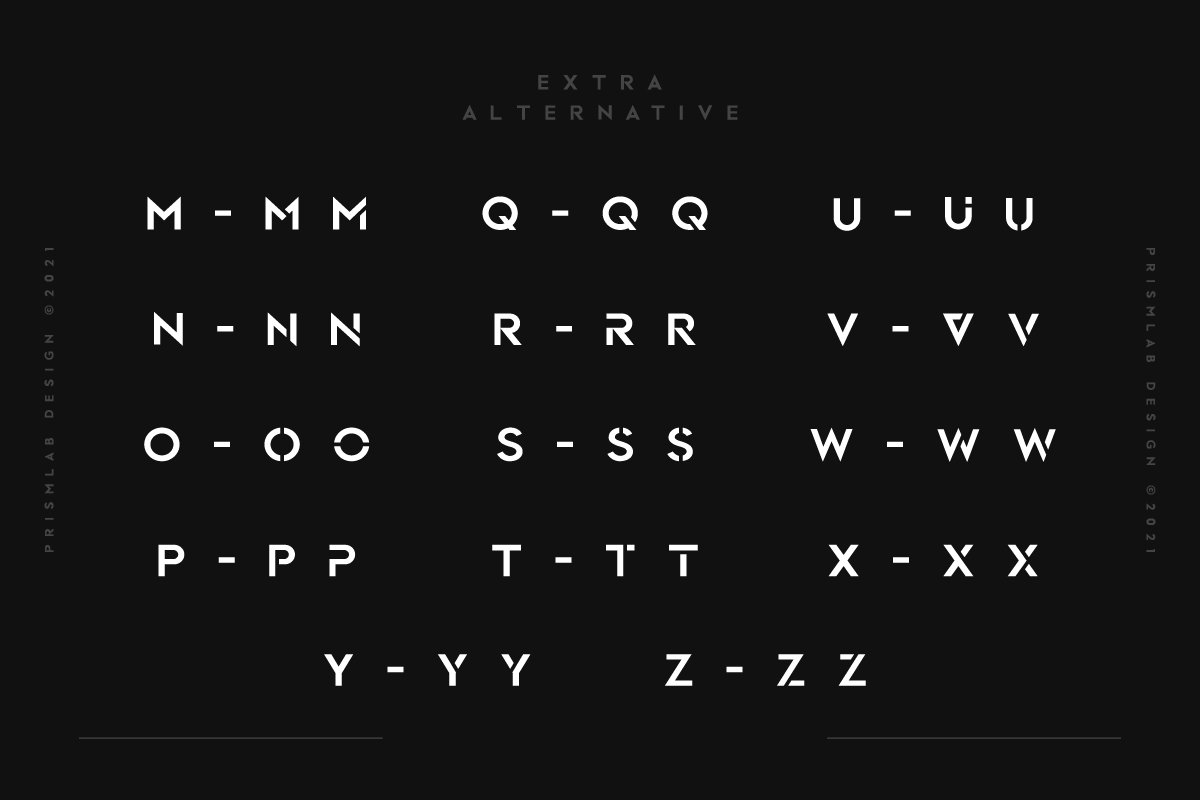
About the Vector A Logo Sans Typeface Font
Vector Is A Logo Sans Typeface Inspired By Strong And Powerful Character, Bold And Sharp With Smooth Textures, Suitable With Your Business And Modern Company, Font Features :Vector Regular , Sharp and EdgyVector Italic , Thin and PlayfulVector Bold , Strong and Powerful Vector Bold Italic , Thick and ElegantFAQ1 user 2 computer installation for Desktop License